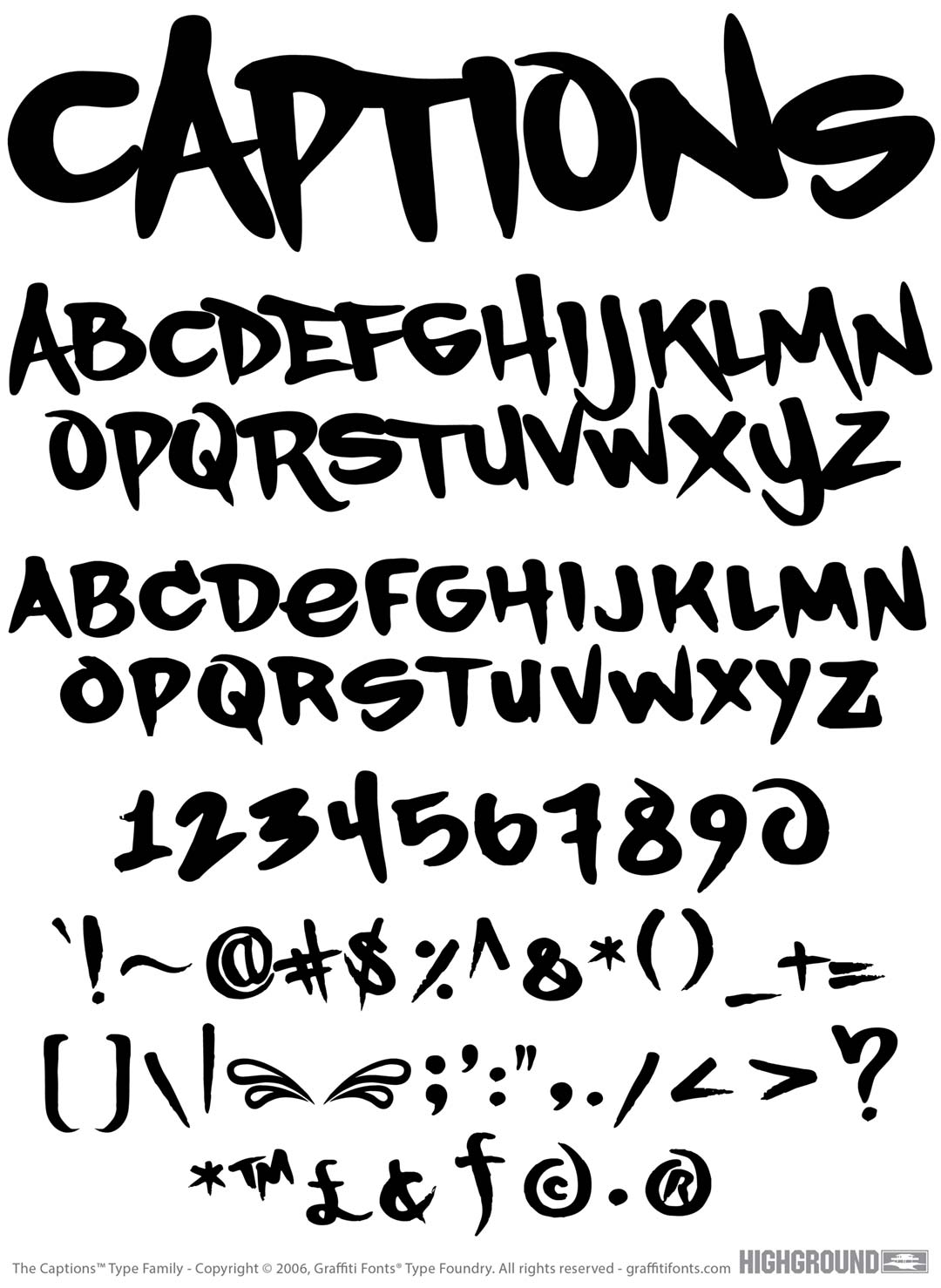
Captions Free
Captions Free Graffiti Alphabet
Captions Free Graffiti Font Family
This is the free version of our Captions™ font. Captions™ was created to emulate the captions often found with pieces & productions. The original characters were done in spray paint and traced in ink before vector tracing. The solid fill & smooth lines make this a versatile, clean & legible style.